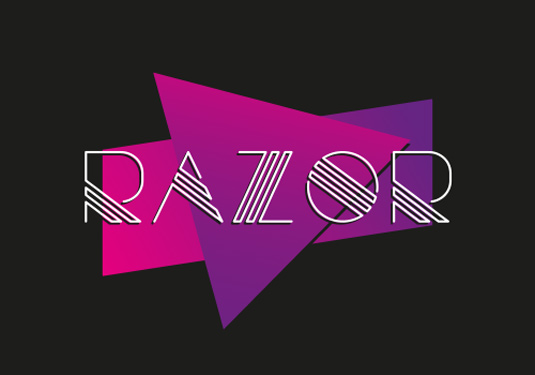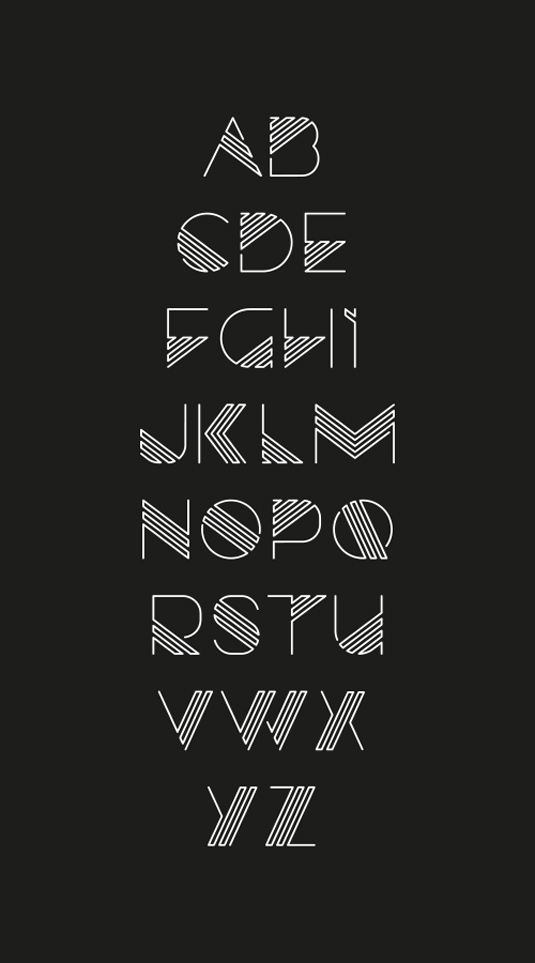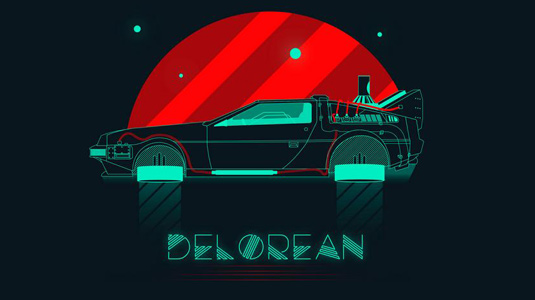
Font of the day: Razor
Every day we showcase the best fonts on the web. Today it's Razor by Jeff Schreiber.
Razor by Jeff Schreiber
Designer Jeff Schreiber is behind today's font of the day, Razor. "Razor takes you back to Miami in the 1980's," he comments. "Think of pink flamengo's, the stainless steel DeLorean and synthesizer tunes. The thin multi-lined characters work well when printed in somewhat bigger sizes."